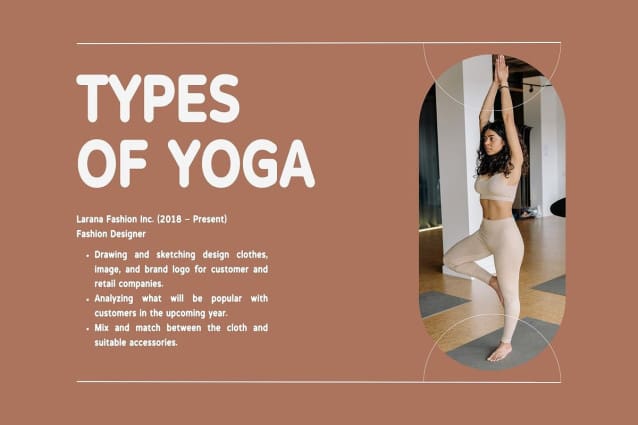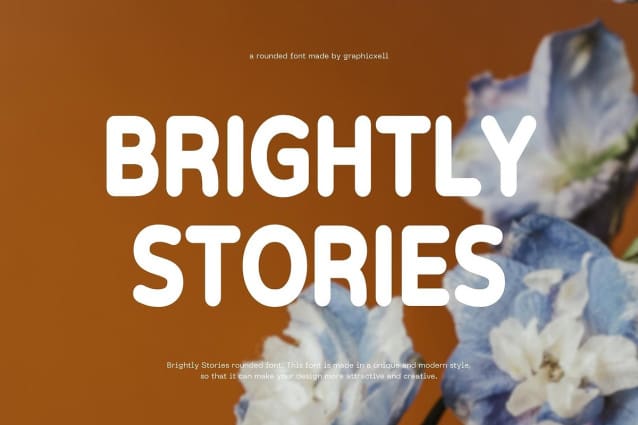
Brightly Stories Font
Brightly Stories Font – Display Sans Font Typeface inspired by the famous minimalist logo perfect for the purposes of designing templates, brochures, videos, advertising branding, logos, invitation, layout design, elegant crafting, beauty design and other